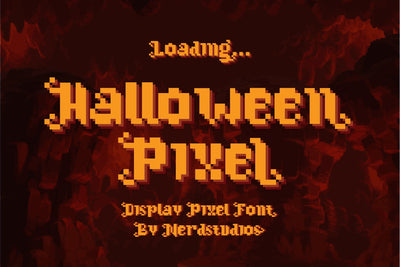
Halloween Pixel Display Font
Halloween Pixel Display Font-for Halloween celebrate and flexible design style with unique character that can enhance the quality of your designs.